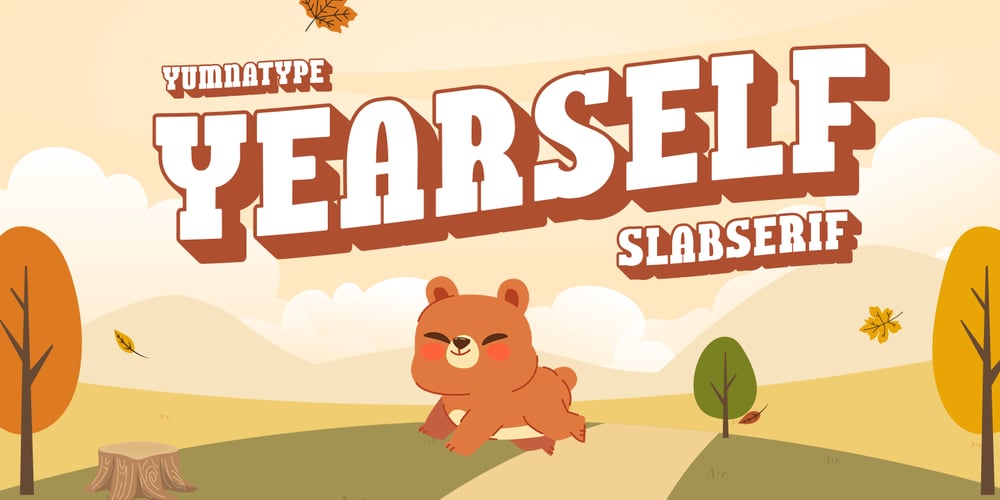
Yearself
Yearself font
Yearself Font Family was designed by Donis Miftahudin and published by Yumna Type. Yearself contains 1 styles and family package options. Yearself combines the robust and sturdy feel of slab serif fonts with a playful twist, resulting in a versatile typeface. The playful style of Yearself is accentuated by its rounded shapes, giving each letter a friendly appearance. With its thick weight, this font makes a bold statement while maintaining an inviting and approachable character. This font is also crafted with consistent proportions, ensuring a harmonious and balanced look across all your text. One of Yearself’s standout features is its quite visible contrast, which adds depth and dimension to your words, enhancing readability and visual appeal. In addition, enjoy the features here.Features: Ligatures Multilingual Supports PUA Encoded Numerals and Punctuations Yearself fits in headlines, logos, posters, flyers, branding materials, print media, editorial layouts, and many more designs. Find out more ways to use this font by taking a look at the font preview.Thanks for purchasing our fonts. Hopefully, you have a great time using our font. Feel free to contact us anytime for further information or when you have trouble with the font. Thanks a lot and happy designing.